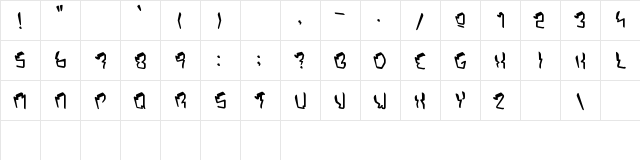
OCTOPUS ORBIT Regular
| Designer | Medeina Musteikyte |
Design Context for OCTOPUS ORBIT Typeface
OCTOPUS ORBIT is a composed and adaptable typeface that performs quietly and consistently across a wide range of design contexts.